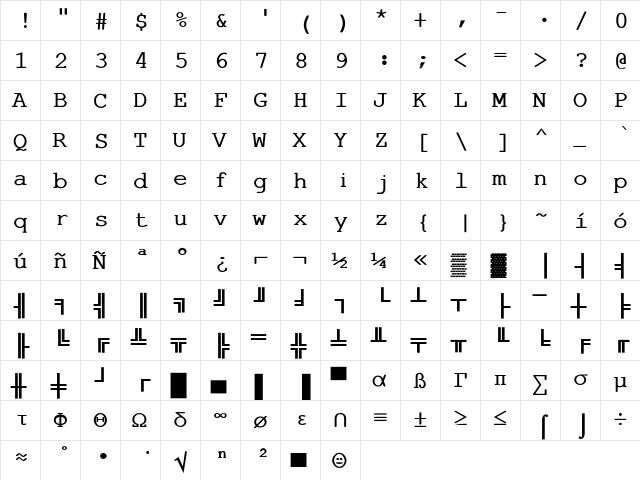
RIPScrip Regular
Design Context for RIPScrip Typeface
RIPScrip offers clean, dependable letterforms without strong stylistic allegiance, making it a practical choice for designers who need flexibility.